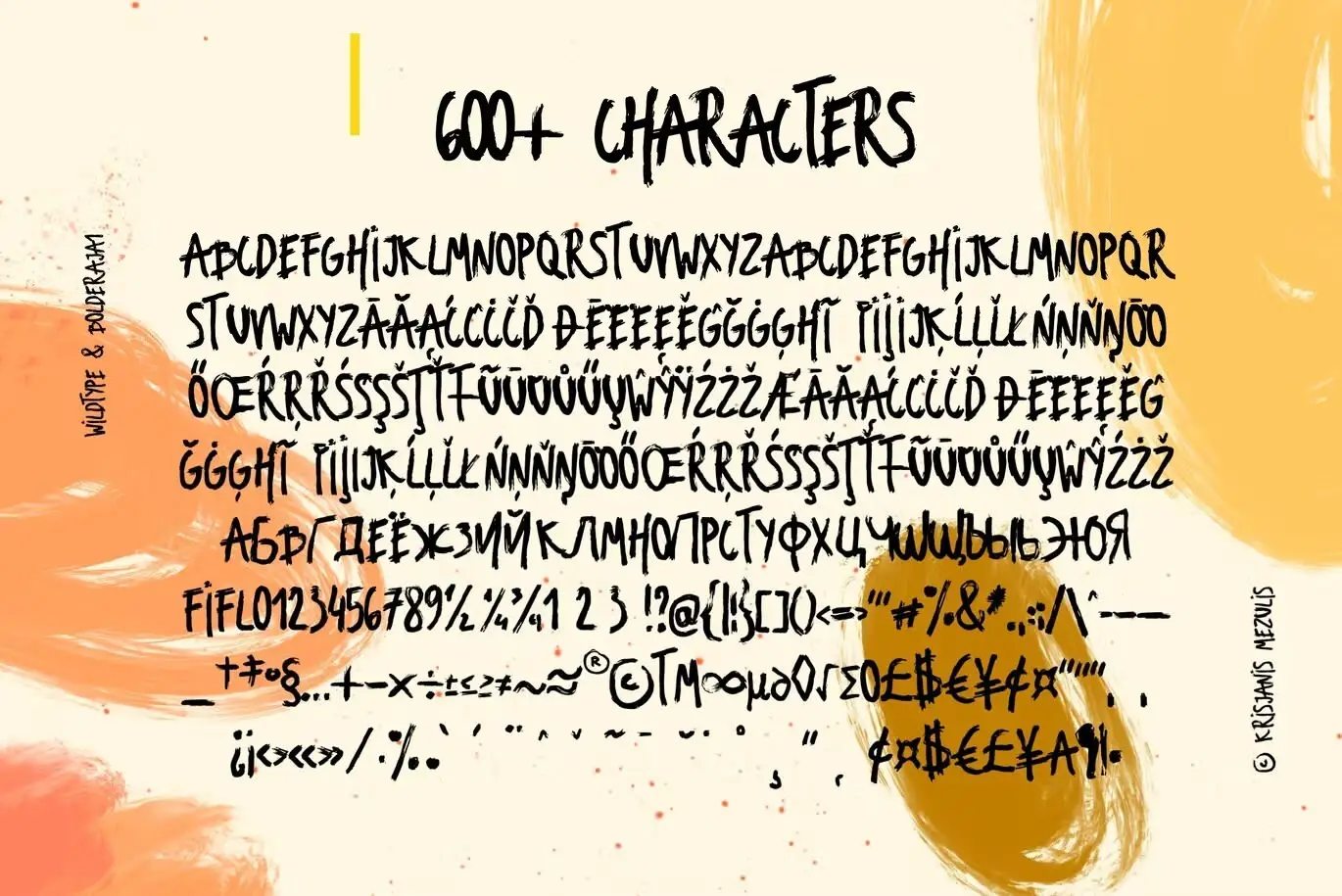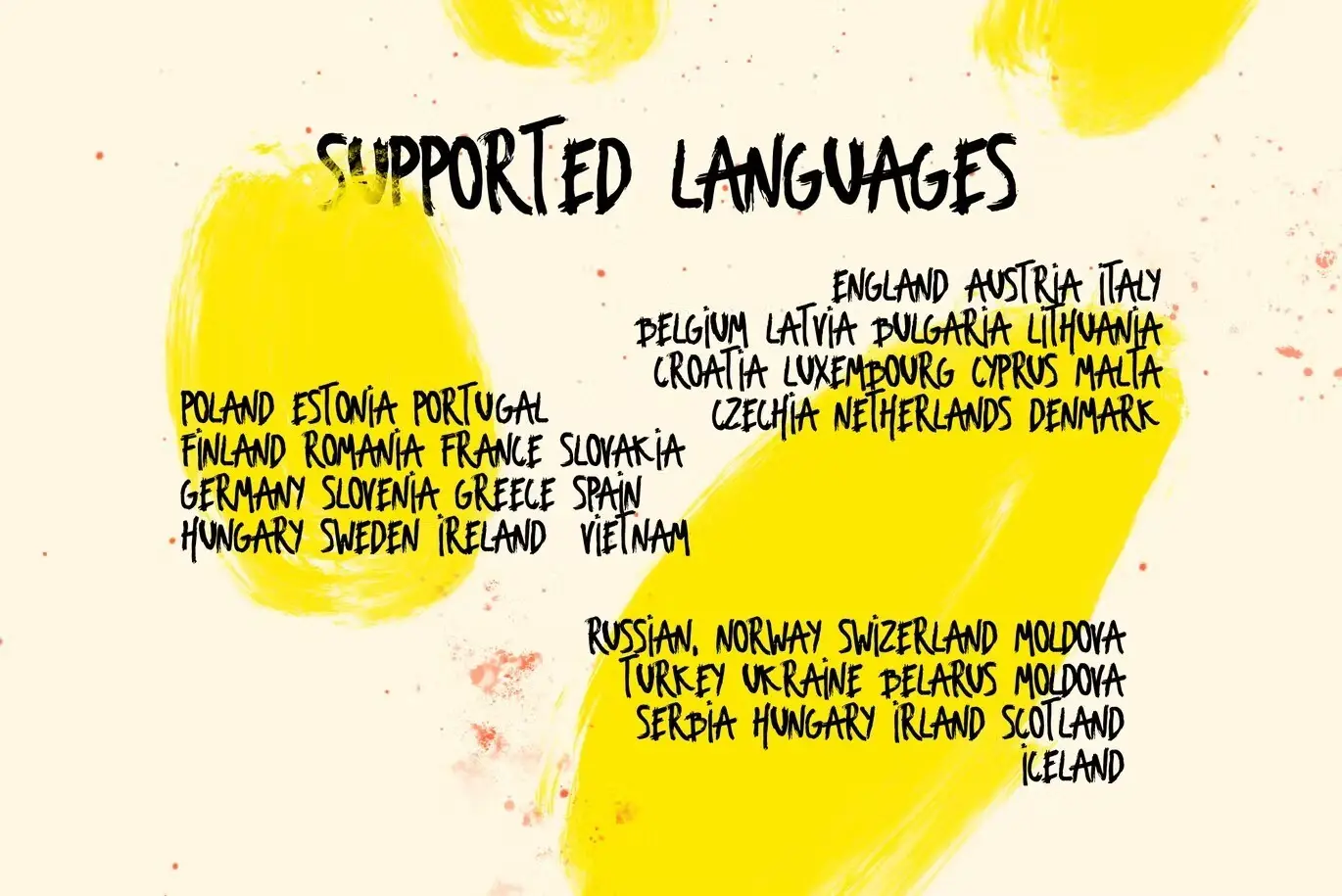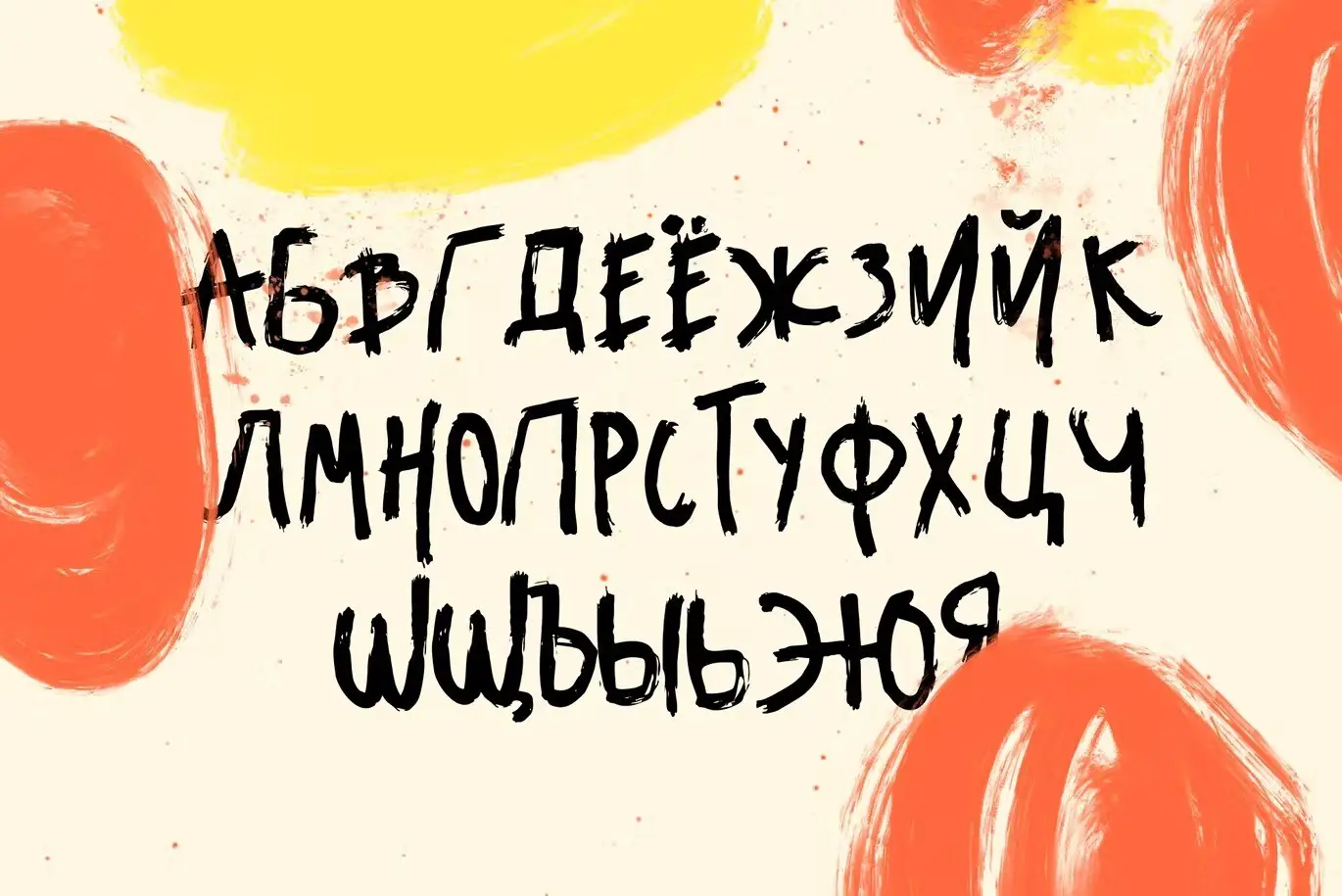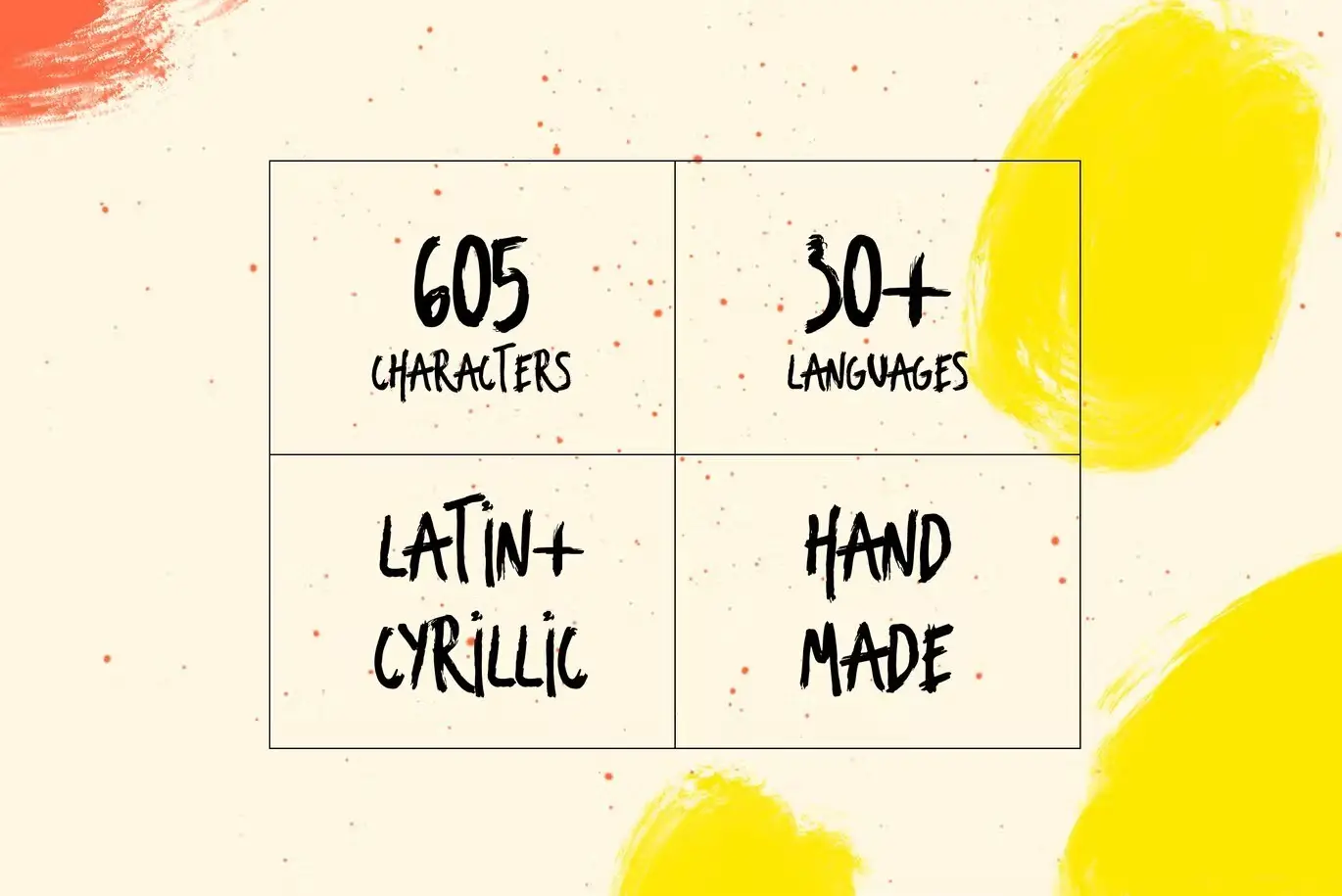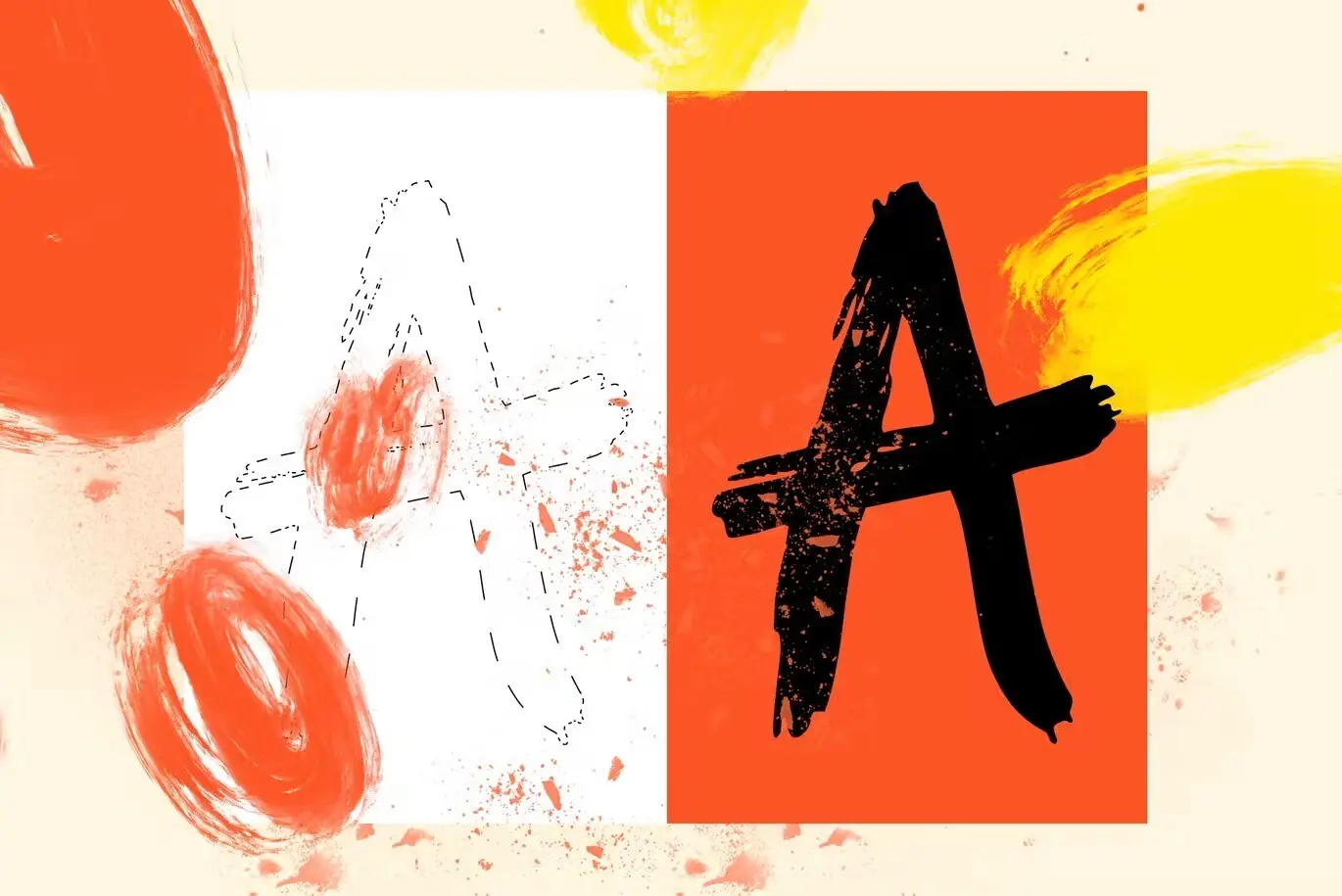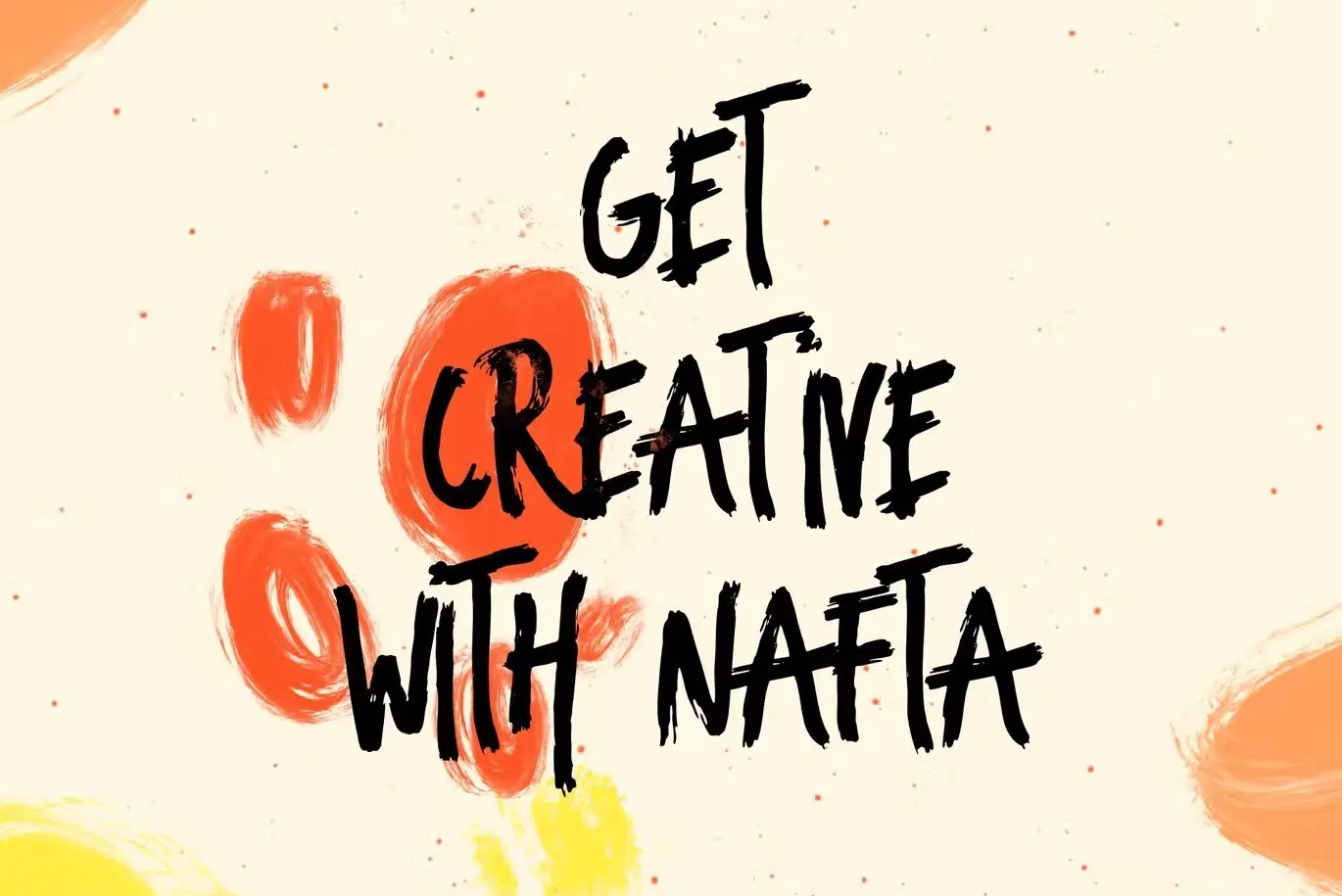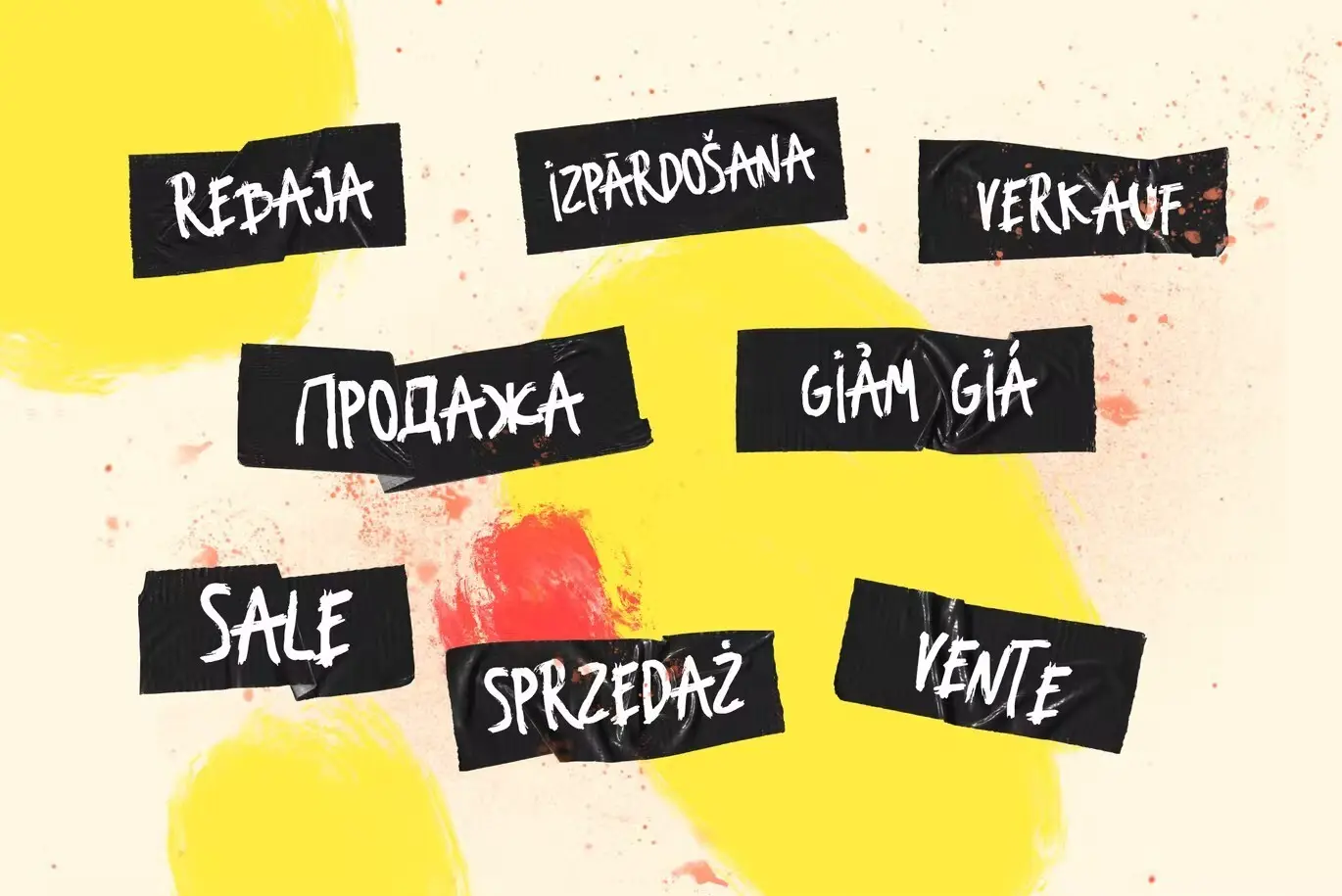
Nafta Extended Marker Font
Nafta Extended Marker Font – A Versatile Handwritten Typeface
If you’re looking for a unique and expressive font, the Nafta Extended Marker Font is the perfect choice. This professional version of the popular Nafta Font offers extensive language support, covering all European languages, Cyrillic, and Vietnamese. With its handwritten marker shapes and natural edges, this font adds a personal touch to your projects.
The Nafta Extended Font is designed for those who appreciate creativity and authenticity in their typography. Whether you’re working on promotional materials, handwritten quotes, product packaging, or branding projects, this brush font will enhance your designs with its charming and artistic flair.
• ✅ Extensive Language Support → Use it for diverse projects across multiple languages.
• ✅ Handwritten Aesthetic → Perfect for adding a personal touch to your designs.
• ✅ Versatile Usage → Ideal for branding, merchandise, and promotional materials.
The Nafta Extended Marker Font stands out due to its unique blend of artistic design and practical functionality. Created by Krisjanis Mezulis at Wildones Type Foundry, this font is trusted by designers worldwide. Its ability to convey a handwritten feel makes it perfect for logos, marketing materials, and more. Plus, with the standard license, you can create unlimited designs, making it a cost-effective choice for your creative projects.
Font Style Brush
Language Support All European languages, Cyrillic, Vietnamese